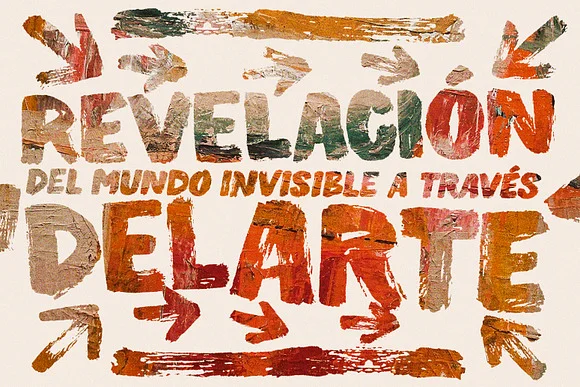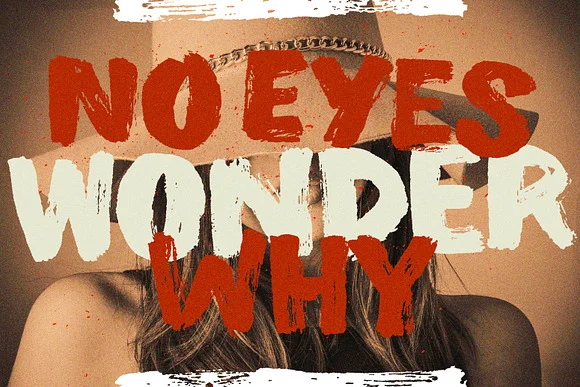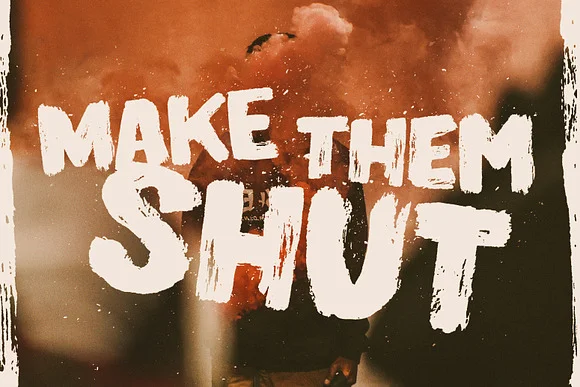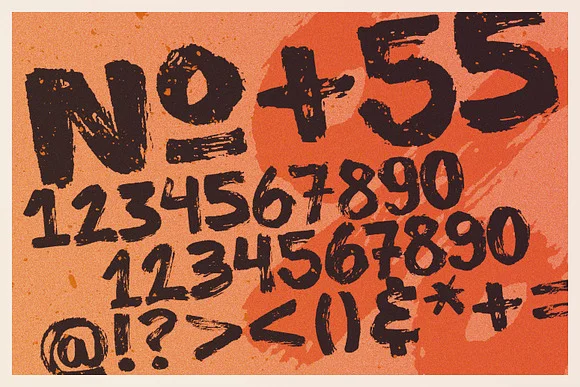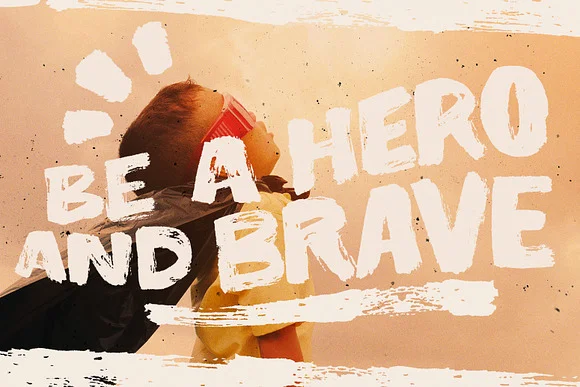
Painterman Brush Font
Typography shapes perception at a subconscious level. Painterman Brush leverages a confident voice that adapts to diverse briefs to make every composition feel considered. The typeface brings a loose, expressive brush sensibility to a broad range of creative disciplines, with distinctive character without sacrificing readability that holds up whether the work is print-first or screen-first.
In practice, Painterman Brush proves particularly effective for pottery studio branding, artisan food labels, travel blogs, brand identity systems, social media graphics. Designers reaching for it find that the type decisions feel resolved rather than laboured — a useful quality when client timelines are tight.
Stroke endings carry the authentic irregularity of a real bristle brush — no two terminals are mechanically identical. Baseline bounce and variable cap heights have been calibrated so the typeface reads as handcrafted without sacrificing alignment consistency.
The range of applications extends to packaging design, editorial layouts, poster creation, craft brewery labels. That breadth is deliberate: the proportions and spacing were stress-tested across a wide range of mock briefs before the typeface was finalised.
Pairing Painterman Brush with a contrasting serif or a neutral grotesque gives mixed-format layouts a clear visual grammar without requiring constant size adjustments to establish hierarchy.
Independent studios handling packaging and editorial work find Painterman Brush a reliable choice for projects that demand both personality and restraint. The design avoids the self-conscious quirkiness that dates quickly, settling instead for considered distinctiveness that holds up over time.